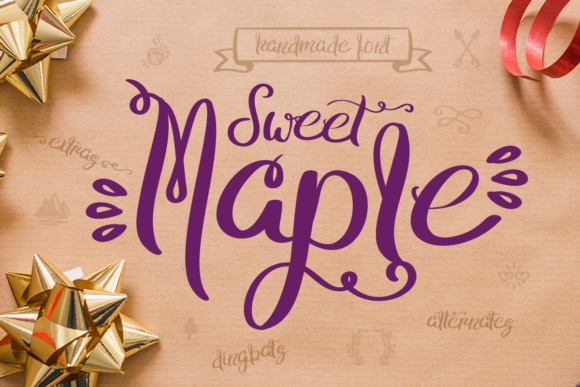
Introducing Sweet Maple Font: A Handcrafted Journey Through Script Elegance
In the realm of digital expression, where words and emotions intertwine, Sweet Maple Font emerges as an exquisite masterpiece, a captivating script that dances across the screen with a gentle, inviting grace. Created by the ingenious minds at Lickable Pixels, this font is a testament to artistry, transforming your digital creations into visual symphonies.
Sweet Maple is not merely a font; it's an experience. With its carefully crafted strokes and meticulously designed characters, it captures the essence of handwritten beauty, evoking a sense of warmth and authenticity that resonates with your audience. Whether you're crafting captivating social media posts, designing enchanting invitations, or weaving awe-inspiring logos, Sweet Maple becomes your trusted companion, guiding you toward design excellence.
Dive into a world where legibility and aesthetics harmoniously coexist. Sweet Maple's letters flow effortlessly, maintaining their graceful form while ensuring crystal-clear readability. Its delicate curves and playful flourishes add a touch of whimsy, transforming ordinary text into captivating narratives that demand attention.
But Sweet Maple's allure extends beyond its visual charm. It comes adorned with a treasure trove of delightful alternates and enchanting dingbats, unlocking a realm of creative possibilities. Unleash your imagination and explore endless combinations, crafting designs that exude originality and leave a lasting impression.
With Sweet Maple as your creative ally, you'll discover a newfound joy in digital design. Its intuitive nature makes it a joy to use, allowing even novice designers to achieve professional-grade results. Experience the transformative power of Sweet Maple and witness your designs blossom into works of art.
Sweet Maple Font: Where Art and Emotion Converge
Sweet Maple is more than just a font; it's an invitation to embark on a creative odyssey, where your imagination knows no bounds. Its enchanting script will elevate your designs, captivating your audience with its timeless elegance and undeniable charm. Embrace the allure of Sweet Maple and unlock the gateway to design brilliance.